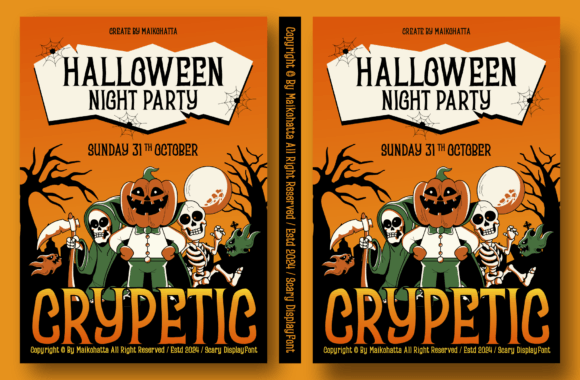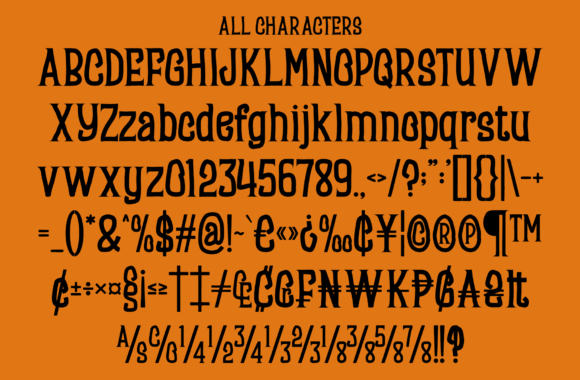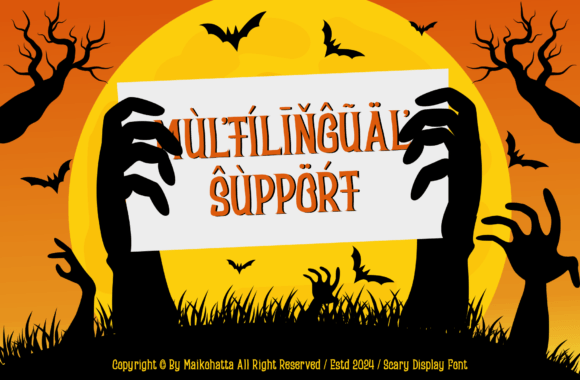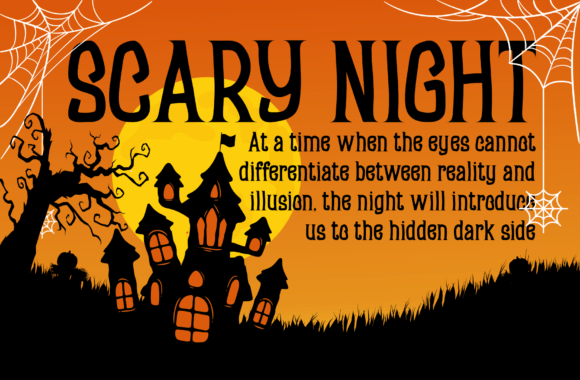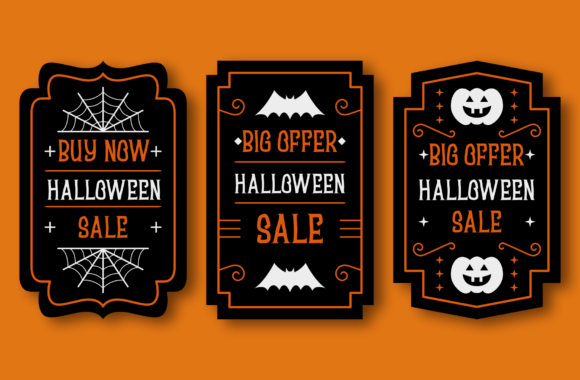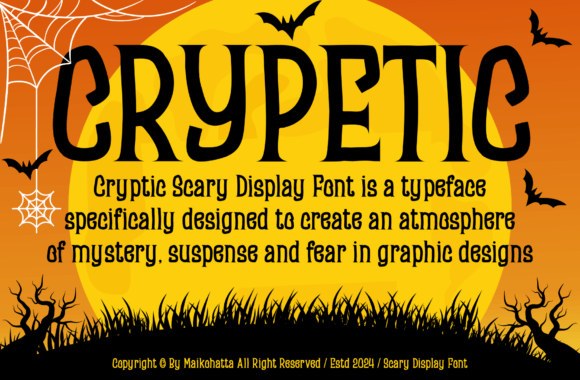
Unleash the Spook: Introducing Crypetic Font – The Ultimate Scary Display Font for Halloween
Are you a designer, crafter, or Halloween enthusiast looking for a font that embodies the spirit of the spookiest season? Look no further! We’re thrilled to introduce Crypetic, a scary display font designed to send shivers down the spines of your audience. This creepy font is perfect for creating a mysterious atmosphere in various Halloween-related media, from party invitations to website designs.
What is Crypetic Font?
Crypetic is a type of display font specifically crafted to evoke the eerie and mystical feelings associated with Halloween. Its unique design features twisted, gothic-inspired letters that seem to leap off the page, creating a sense of foreboding and unease. Whether you’re designing a haunted house invitation, a spooky poster, or a creepy greeting card, Crypetic is the perfect choice.
Key Features of Crypetic Font
- Unique and Creepy Design: Crypetic’s design is unlike any other font. Its twisted, gothic-inspired letters are sure to grab attention and create a lasting impression.
- Versatile: This font can be used in a variety of Halloween-related media, including party invitations, posters, merchandise designs, greeting cards, warning signs, and website designs.
- Easily Customizable: Crypetic can be easily customized to fit your specific needs. Change the color, size, and style to create a unique look that matches your brand or design.
- High-Quality: Our font is designed with high-quality and clear rendering in mind, ensuring that it looks great in any application.
Use Cases for Crypetic Font
Crypetic is an incredibly versatile font that can be used in a wide range of Halloween-related projects. Here are some ideas to get you started:
- Party Invitations: Create spooky and intriguing invitations that will set the tone for a howling good time.
- Posters and Flyers: Design eye-catching posters and flyers that will grab attention and create a sense of excitement.
- Merchandise Designs: Use Crypetic to create creepy and unique designs for Halloween-themed merchandise, such as t-shirts, mugs, and trick-or-treat bags.
- Greeting Cards: Create spooky and humorous greeting cards that will add a touch of Halloween spirit to your friends and family.
- Warning Signs: Design ominous warning signs that will add to the spooky atmosphere of your haunted house or Halloween party.
- Website Designs: Use Crypetic to create a Halloween-themed website that’s sure to leave visitors with a lasting impression.
Why Choose Crypetic Font?
With so many fonts available, why choose Crypetic? Here are just a few reasons why Crypetic stands out from the rest:
- Unique Design: Crypetic’s design is one-of-a-kind, ensuring that your project will stand out from the crowd.
- High-Quality: Crypetic is designed with high-quality and clear rendering in mind, ensuring that it looks great in any application.